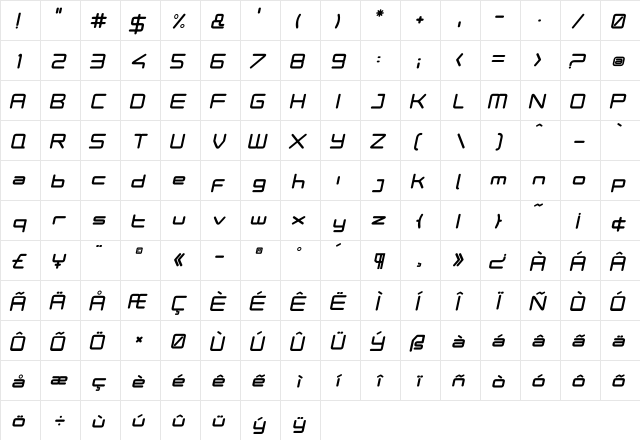
PhutureODC Black Italic
Design Context for PhutureODC Typeface
PhutureODC is a composed and adaptable typeface that performs quietly and consistently across a wide range of design contexts. The slanted form adds forward momentum and visual energy.